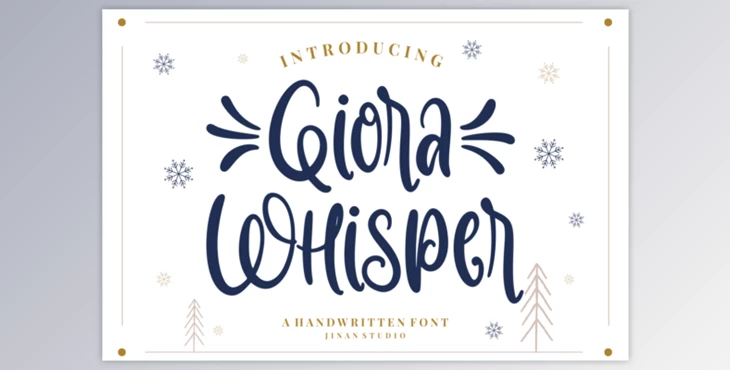
Giora Whisper Font: Meet Giora Whisper, a playful handwritten font that brings a festive touch to many Christmas-themed applications, from greeting cards to headlines and beyond. Embrace the romantic and joyful essence of this font in your creative endeavors!
Unlock the cheerful spirit of Giora Whisper and infuse your designs with the warmth and joy of the holiday season!